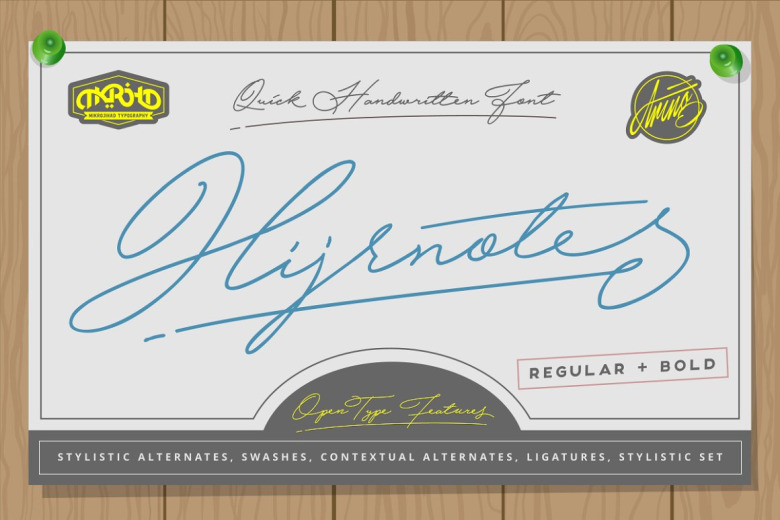
Hijrnotes Font
Meet Hijrnotes, a quick handwritten font. A monoline connected script with big uppercase and a very small lowercase. With over 400 glyphs, Hijrnotes support Stylistic Alternates, Swashes, Contextual and Ligatures. Really good for create autography sign, name card, neon sign and quotes typography design.
Hijrnotes Handwritten Font